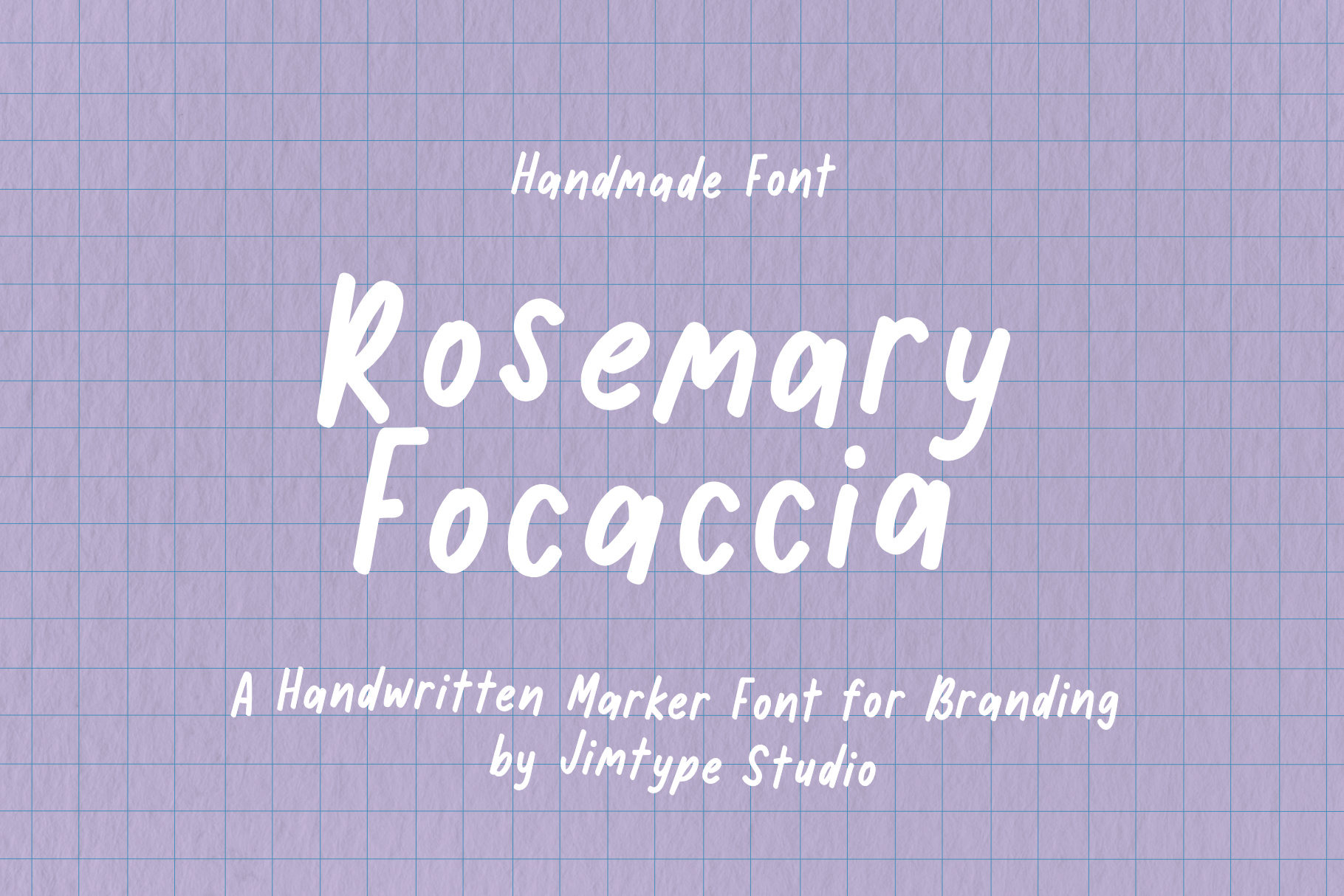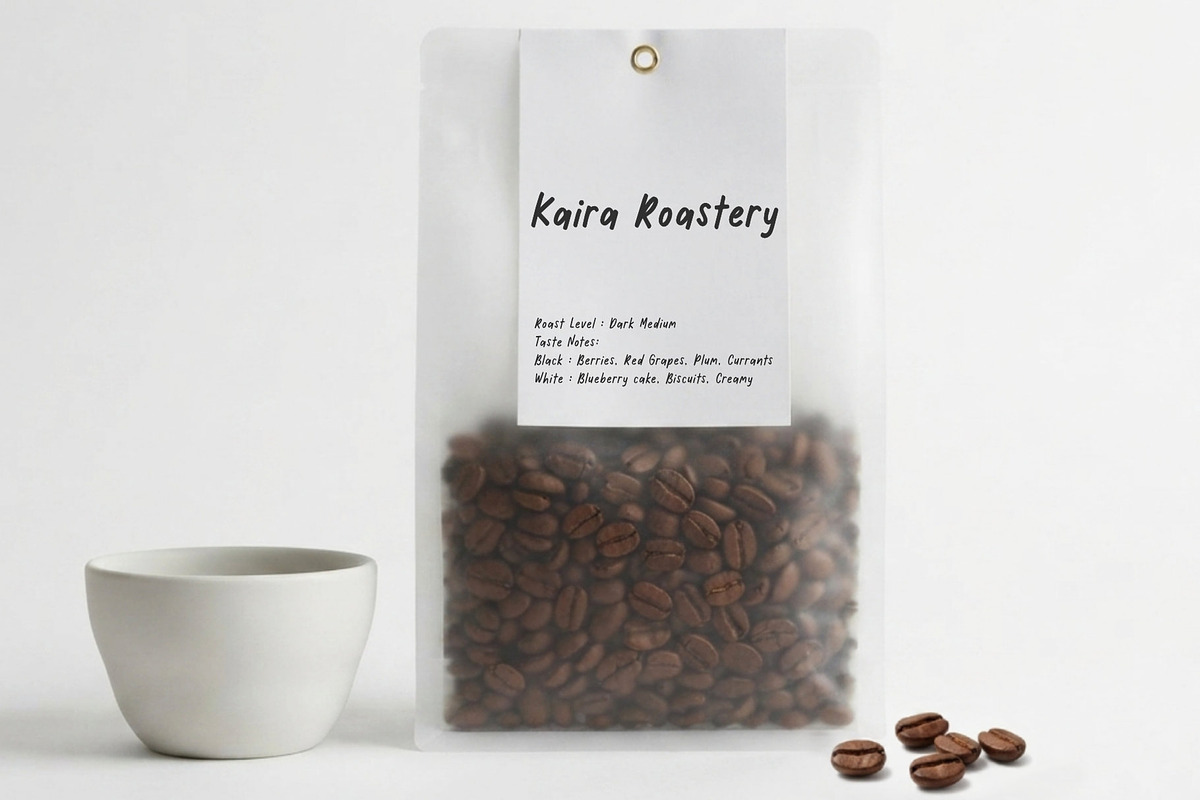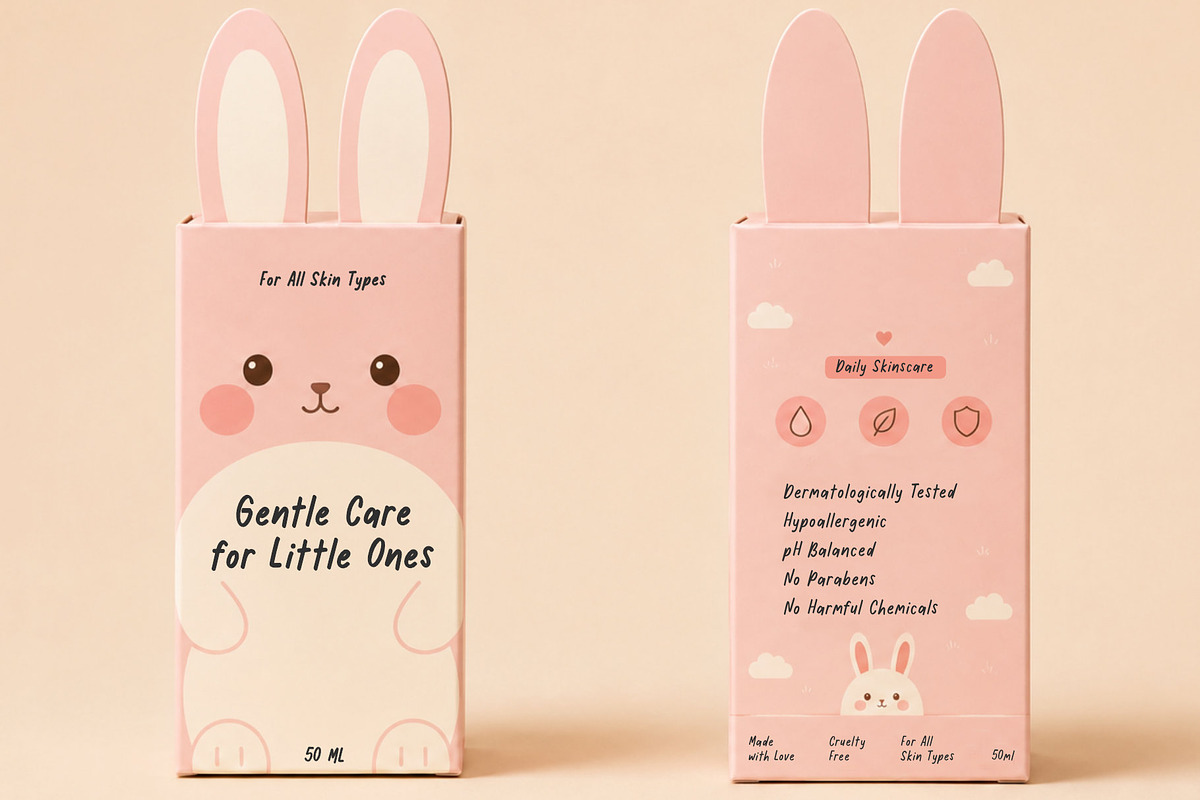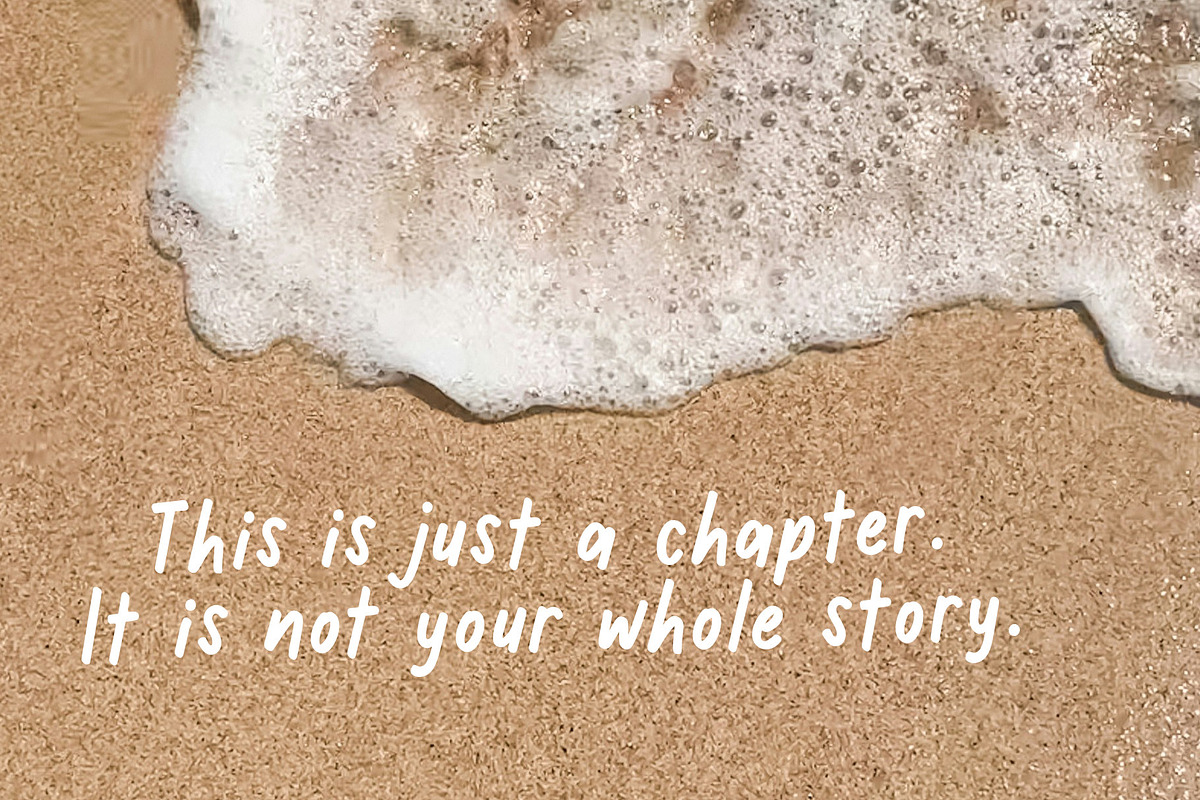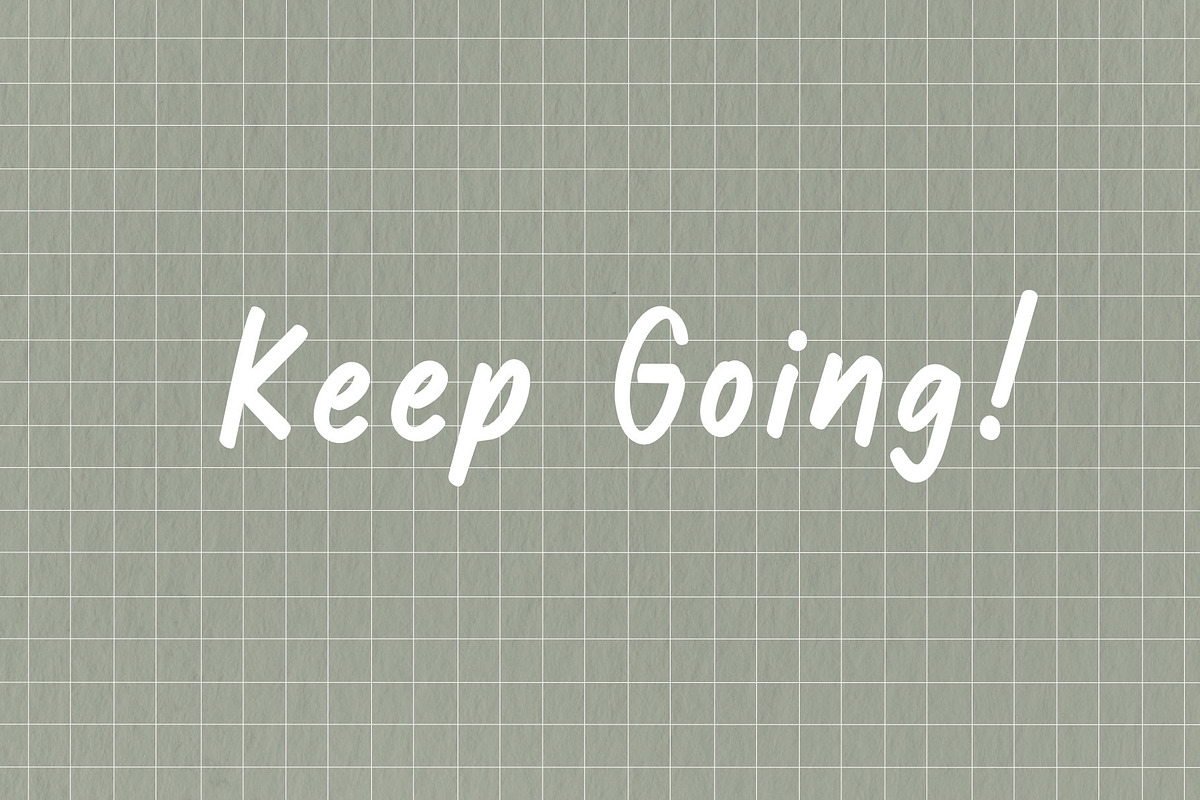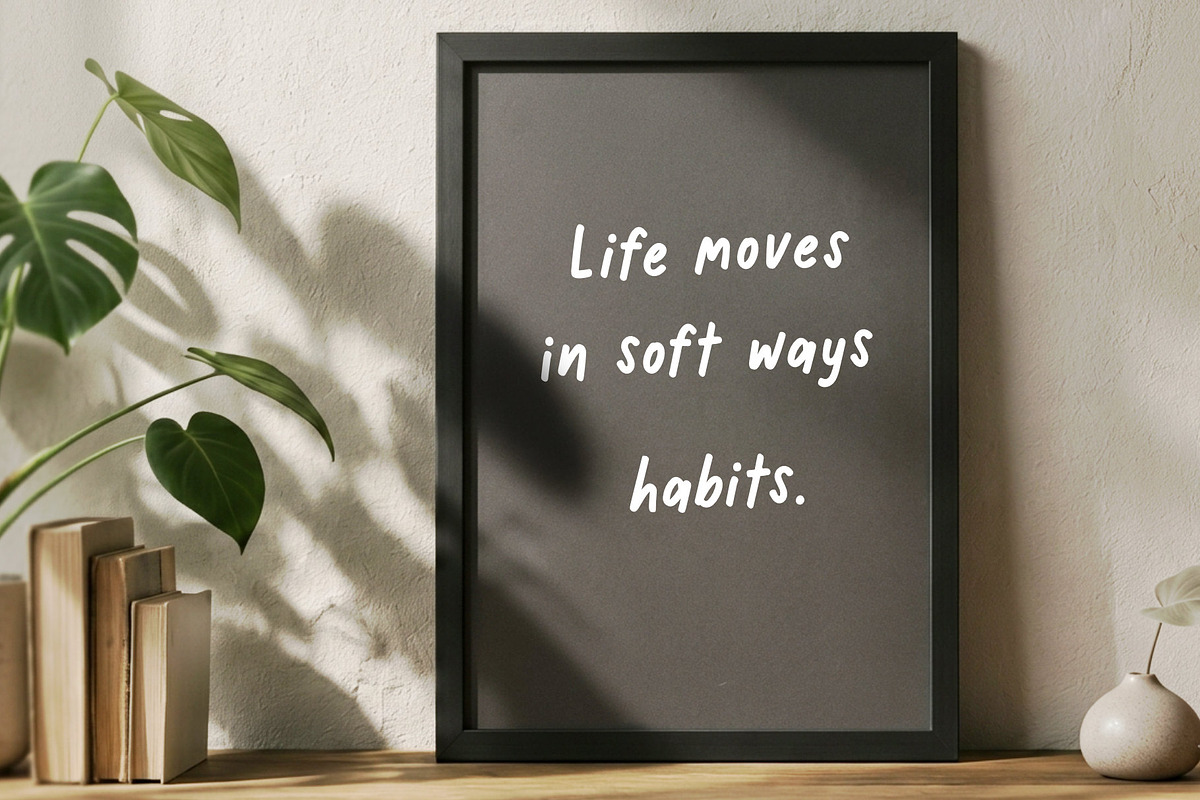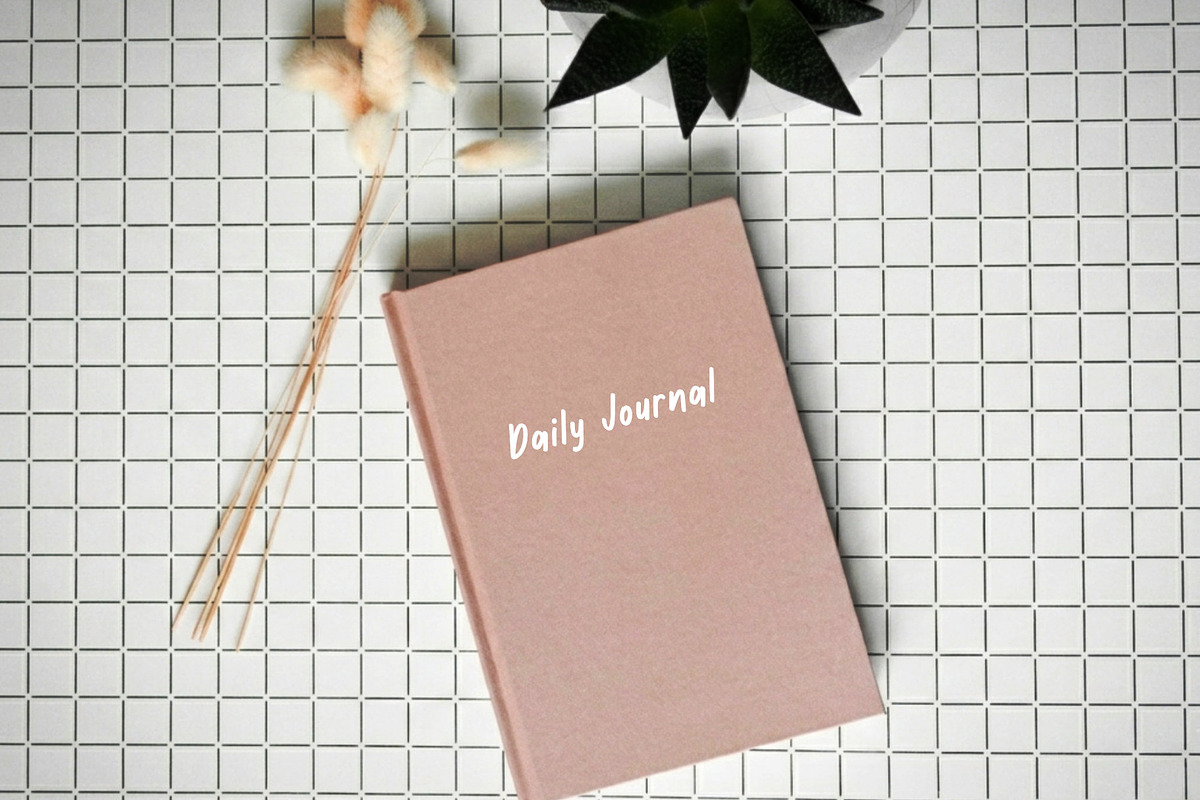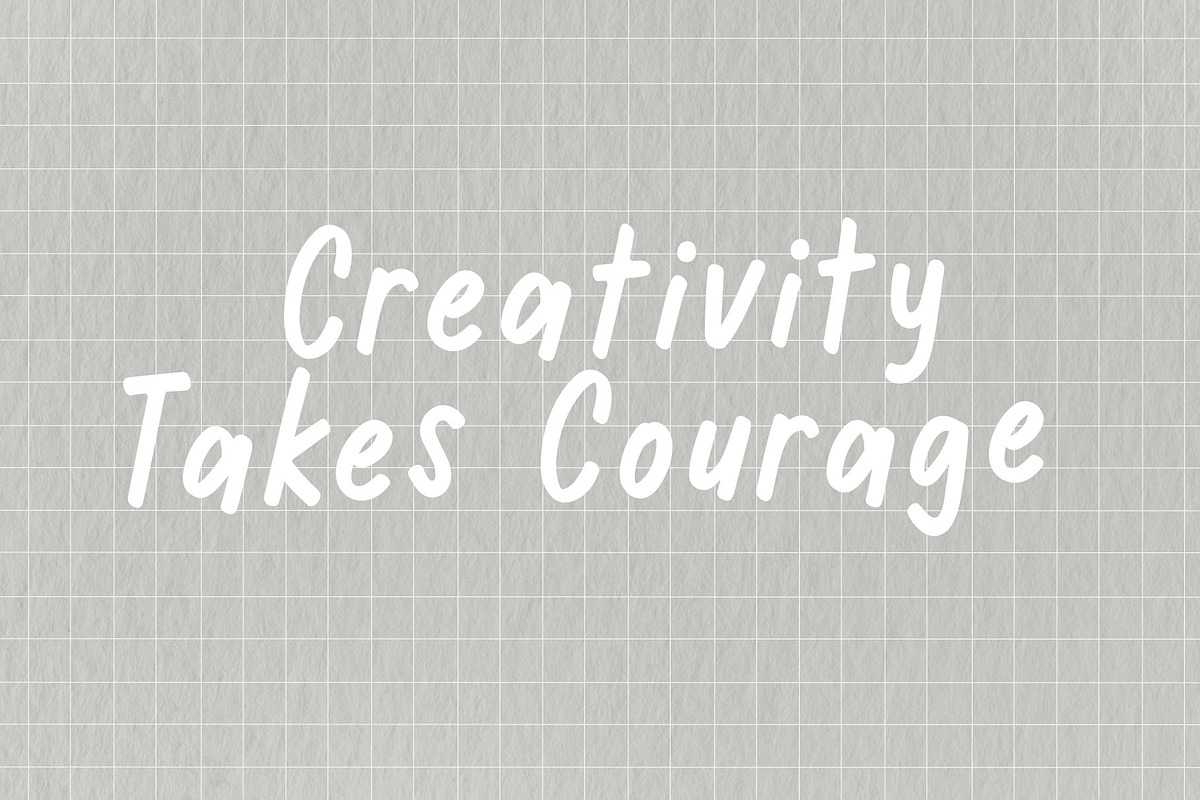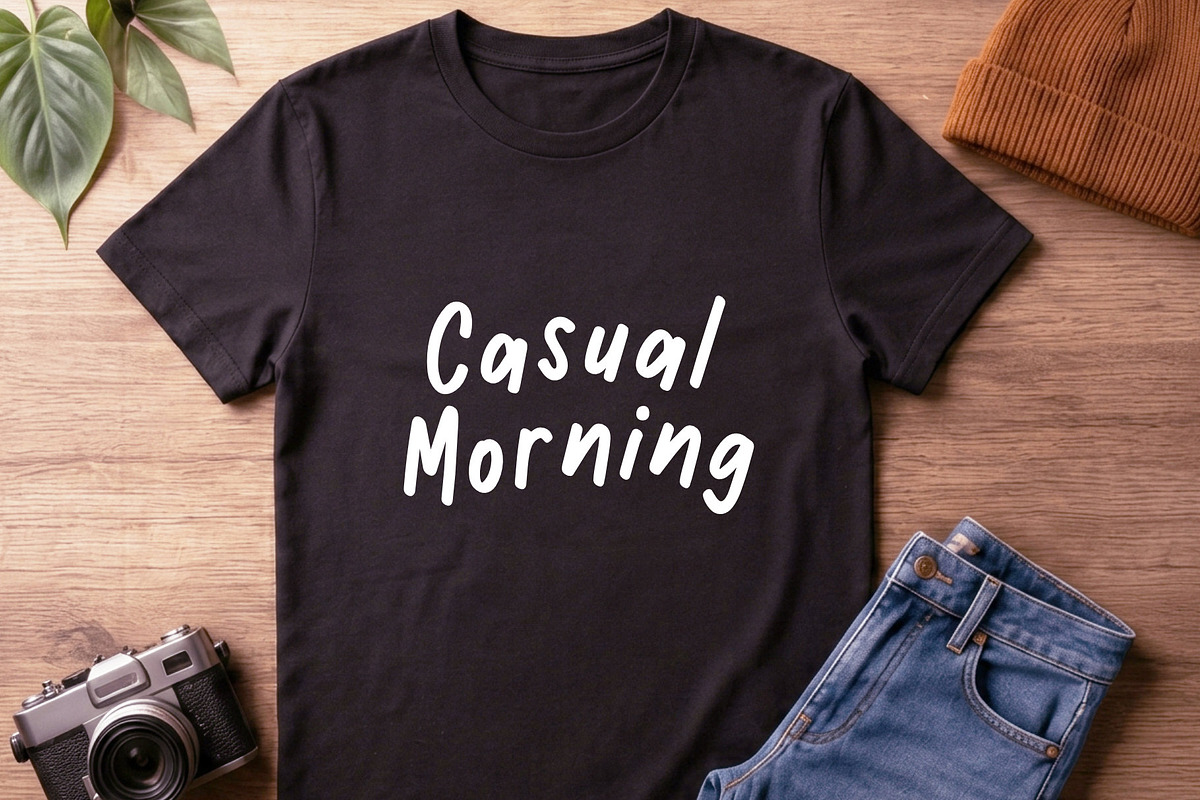
Rosemary Focaccia - Marker Font
Say hello to Rosemary Focaccia.
Rosemary Focaccia is a handwritten marker font built for brands that want to feel natural. Its relaxed yet casual form, Rosemary Focaccia a type of handwriting that transforms an ordinary label into something eye-catching in the eyes of others. It reads beautifully at large display sizes and still stays clean in shorter lines of text.
Designed with real projects in mind, Rosemary Focaccia is a natural fit for logos, branding, product packaging, and labels for skincare, baby and kids products, quote prints, wall art, t-shirts, tote bags, mugs, Social media, reels covers, planners, stationery, and greeting cards, wedding and other print-on-demand products.